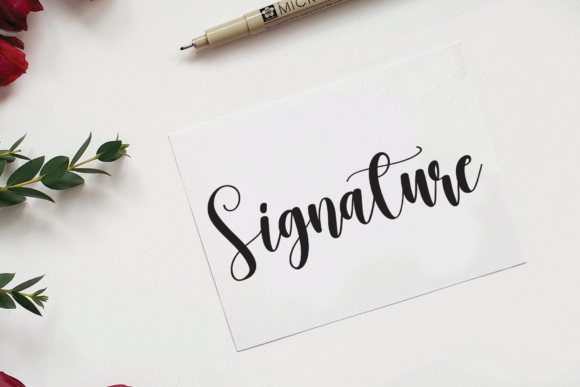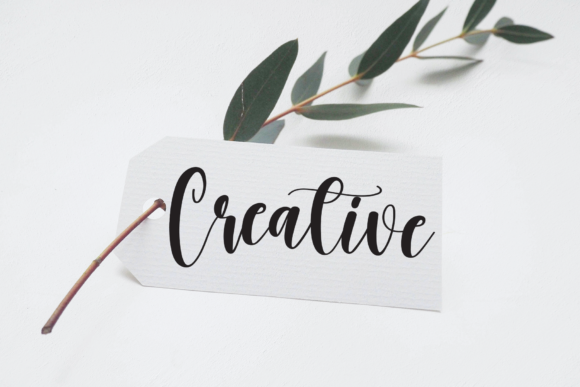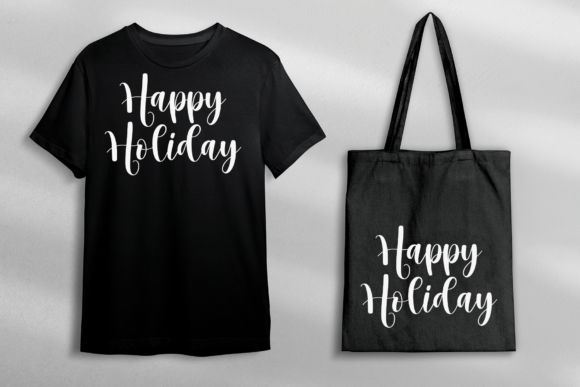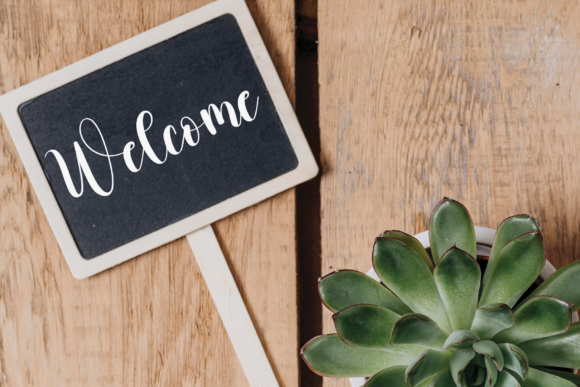
Introducing As Font: Elevate Your Creativity with Elegance
Are you a designer, crafter, or DIY enthusiast looking for a font that can add a touch of magic to your creative projects? Look no further than As Font, a beautifully crafted script font that exudes elegance and sophistication. In this article, we’ll dive into the world of As Font, exploring its features, benefits, and uses, and show you how it can transform your creative ideas into stunning works of art.
The Story Behind As Font
As Font is a carefully crafted script font designed to bring a touch of elegance to your creative projects. With its unique blend of classic and modern elements, this font is perfect for anyone looking to add a dash of sophistication to their designs. Whether you’re working on a DIY project, creating social media content, or designing a brand identity, As Font is the perfect choice.
Key Features of As Font
So, what makes As Font so special? Here are some of its key features:
- Elegant and Sophisticated: As Font boasts a beautiful, flowing script that adds a touch of elegance to any design.
- Magical and Whimsical: With its unique letterforms and subtle quirks, As Font has a touch of magic that will make your designs stand out.
- Versatile: Whether you’re designing for Instagram, creating a brand identity, or working on a DIY project, As Font is the perfect choice.
- Easy to Use: As Font is designed to be easy to use, even for those with limited design experience.
Uses for As Font
As Font is a versatile font that can be used in a variety of creative projects. Here are some ideas to get you started:
- Instagram Graphics: Add a touch of elegance to your Instagram feed with As Font. Use it to create stunning quotes, captions, and graphics that will make your followers swoon.
- DIY Projects: As Font is perfect for DIY enthusiasts who love to create handmade cards, gift tags, and other paper crafts. Add a touch of magic to your projects with this beautiful font.
- Calligraphy Scripts: As Font is a beautiful script font that’s perfect for calligraphy scripts. Use it to create stunning hand-lettered pieces that will impress your friends and family.
- Branding and Identity: As Font is also perfect for designers who need a elegant and sophisticated font for branding and identity projects. Use it to create stunning logos, business cards, and letterheads.
Tips for Using As Font
Here are some tips for getting the most out of As Font:
- Experiment with Colors: As Font looks stunning in a variety of colors. Experiment with different hues and combinations to find the perfect look for your project.
- Play with Sizes: As Font is a versatile font that can be used in a range of sizes. Experiment with different sizes to find the perfect fit for your project.
- Add Decorations: As Font is a beautiful font that can be paired with a range of decorations, from simple lines to intricate illustrations. Experiment with different decorations to add a touch of personality to your project.
In conclusion, As Font is a magical script font that’s perfect for designers, crafters, and DIY enthusiasts who want to add a touch of elegance to their creative projects. With its unique blend of classic and modern elements, this font is versatile, easy to use, and perfect for a range of applications. Whether you’re working on a DIY project, creating social media content, or designing a brand identity, As Font is the perfect choice. So why wait? Download As Font today and transform your creative ideas into stunning works of art!